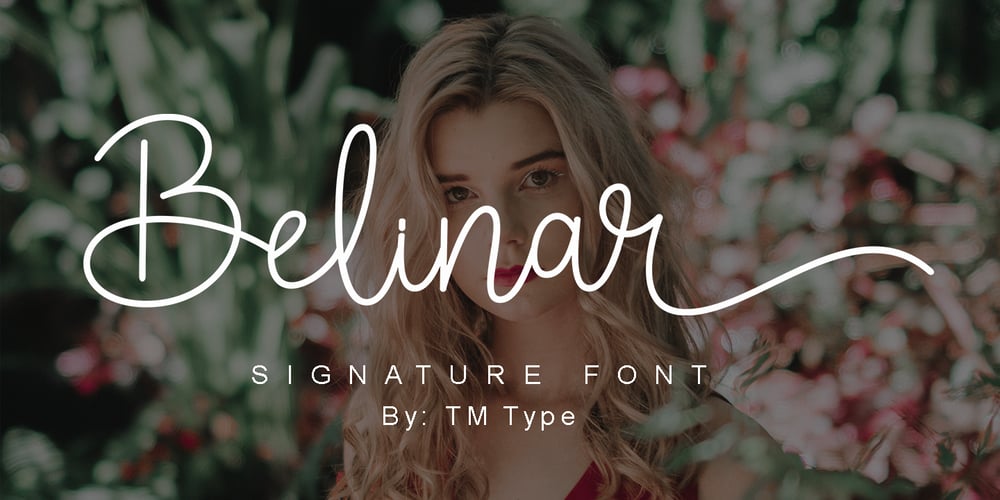
Belinar Font Family was designed by Teuku Bustami and published by TM Type. Belinar contains 1 styles and family package options. Belinar is a sleek, signature script that will give your work instant class and style. Use this font for branding, logos, signatures, invitations and any other designs.